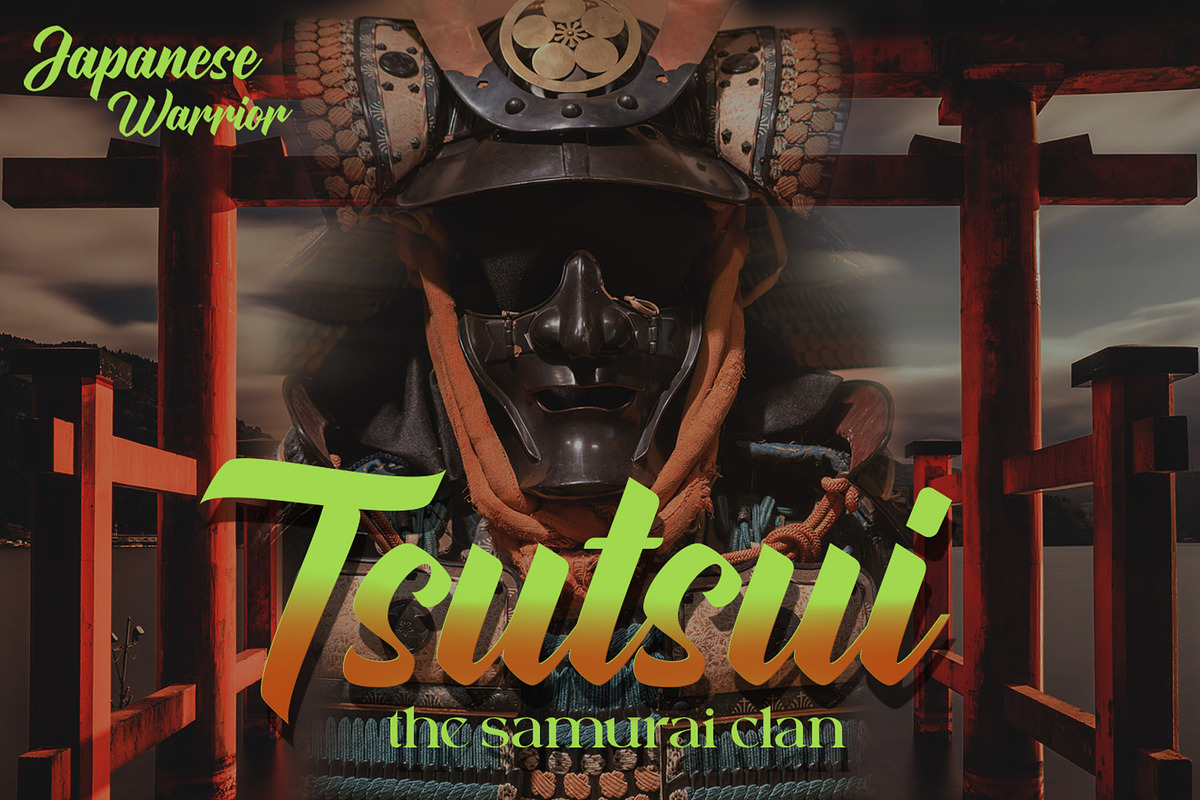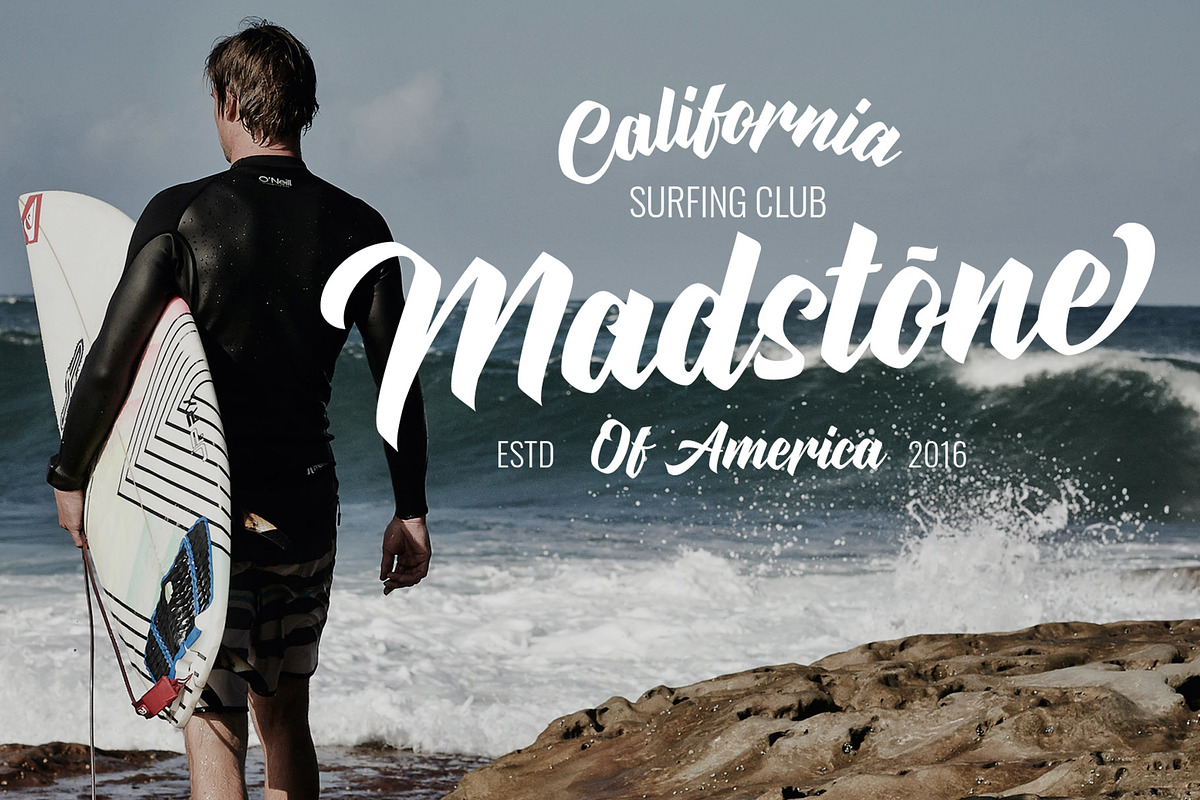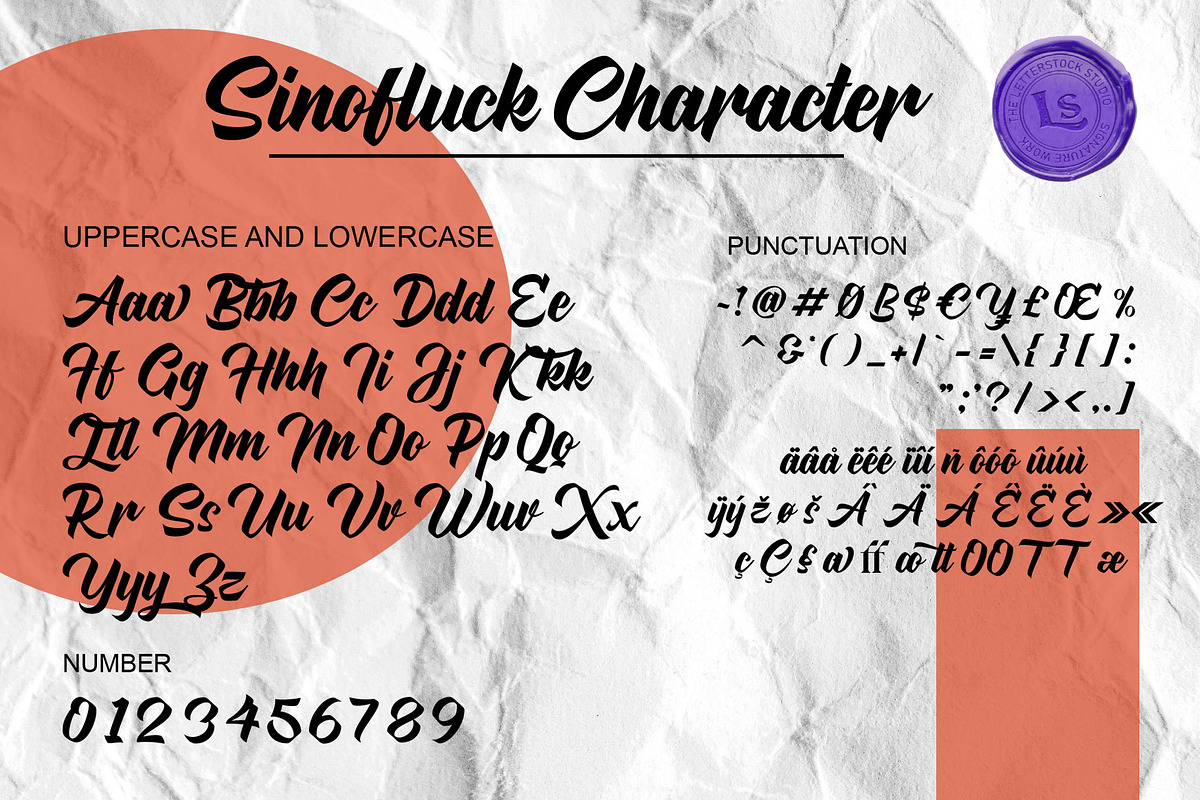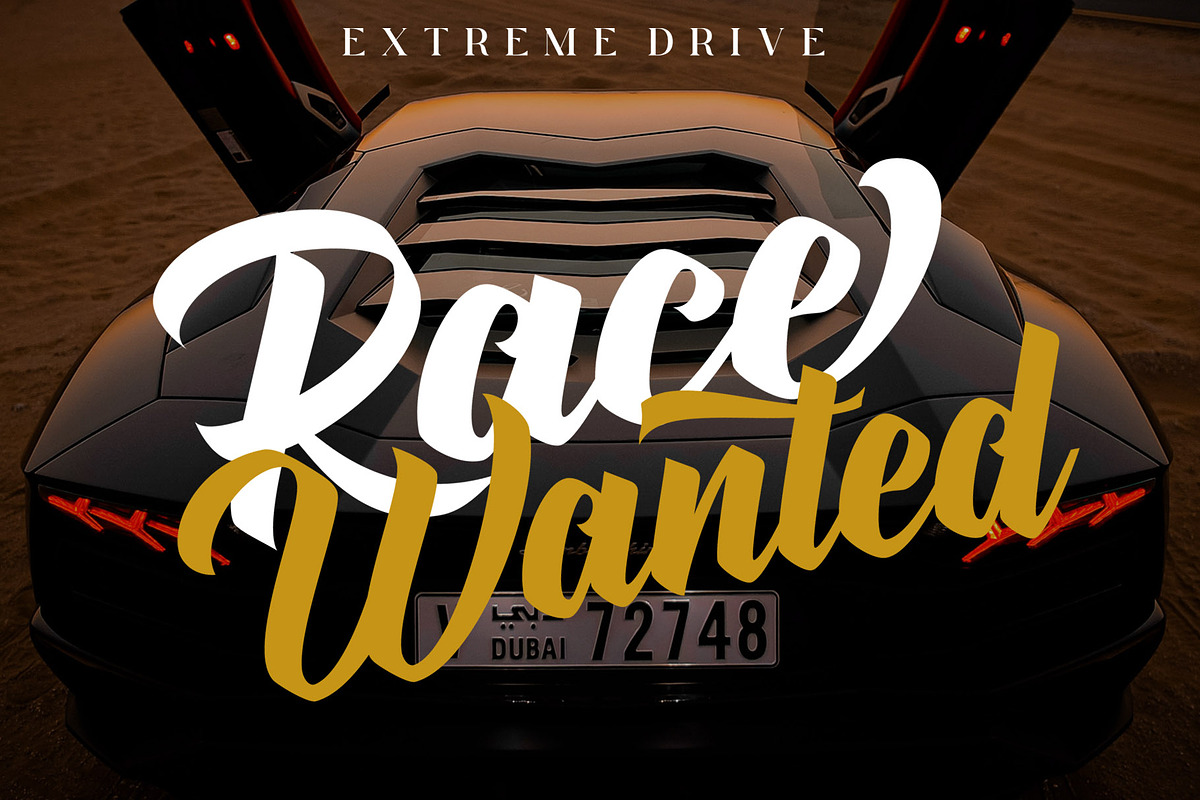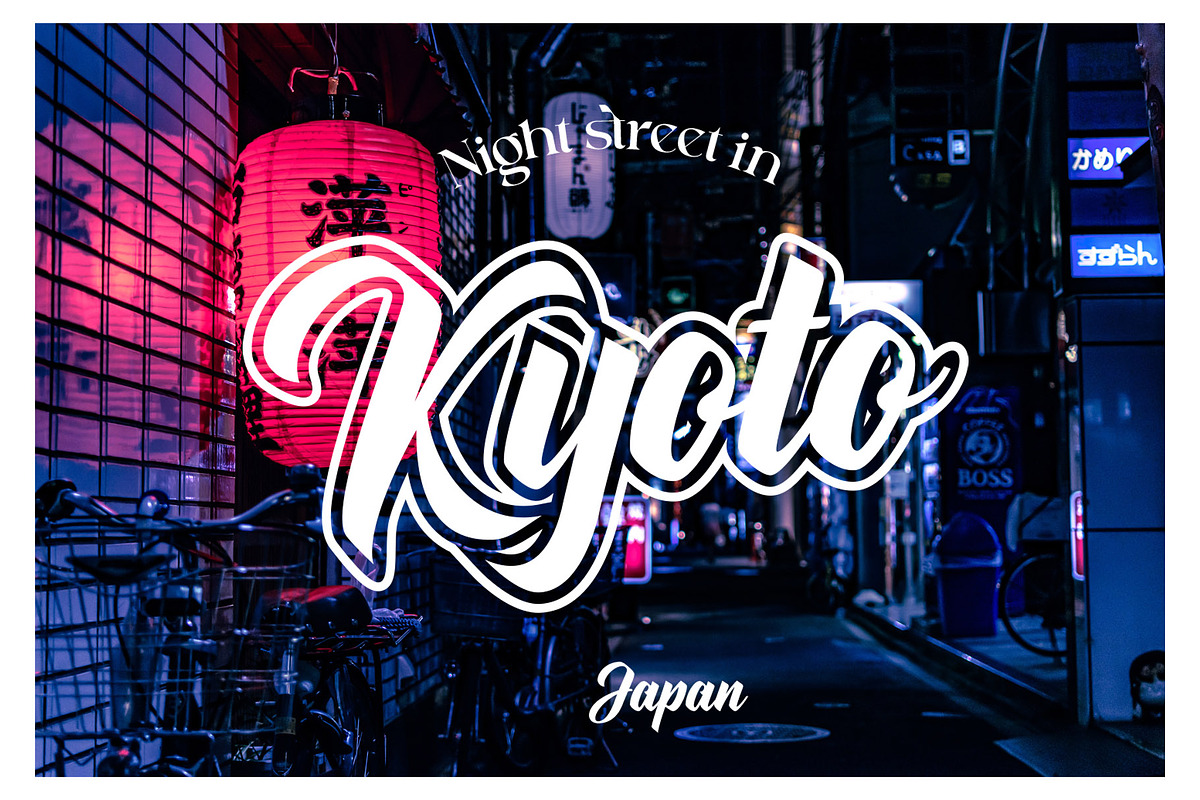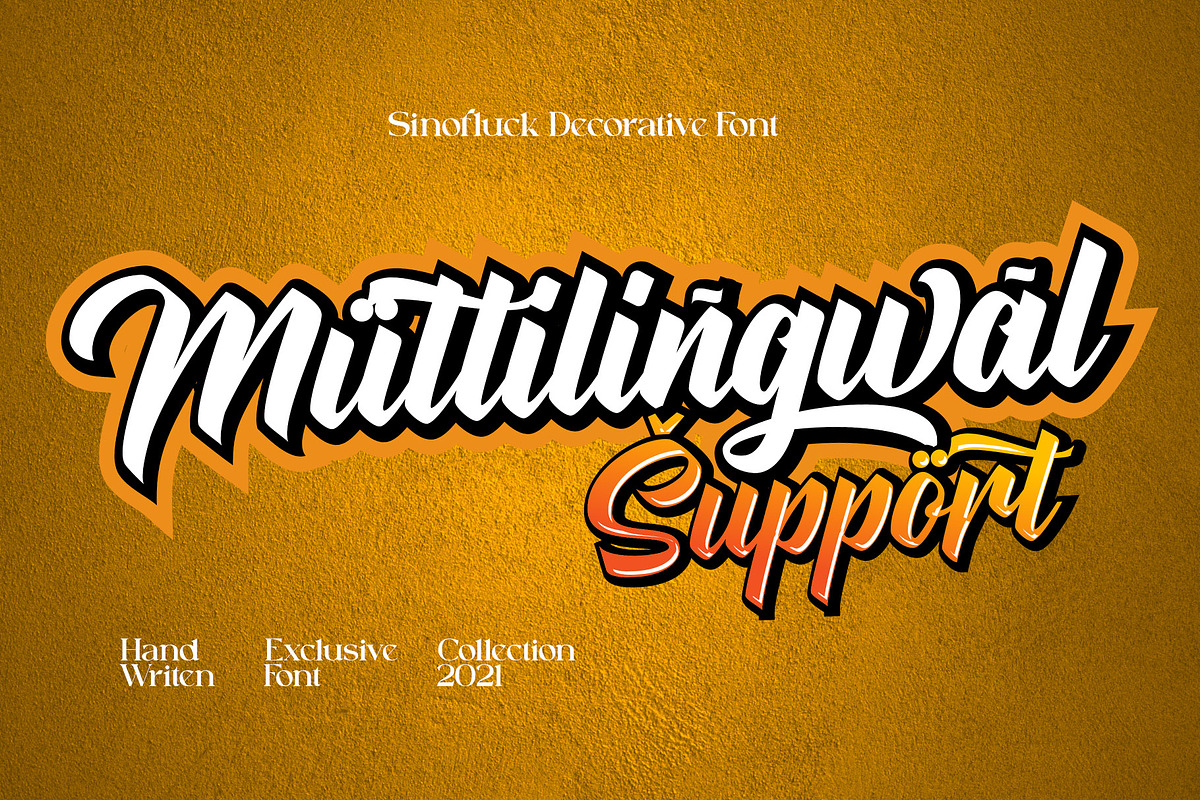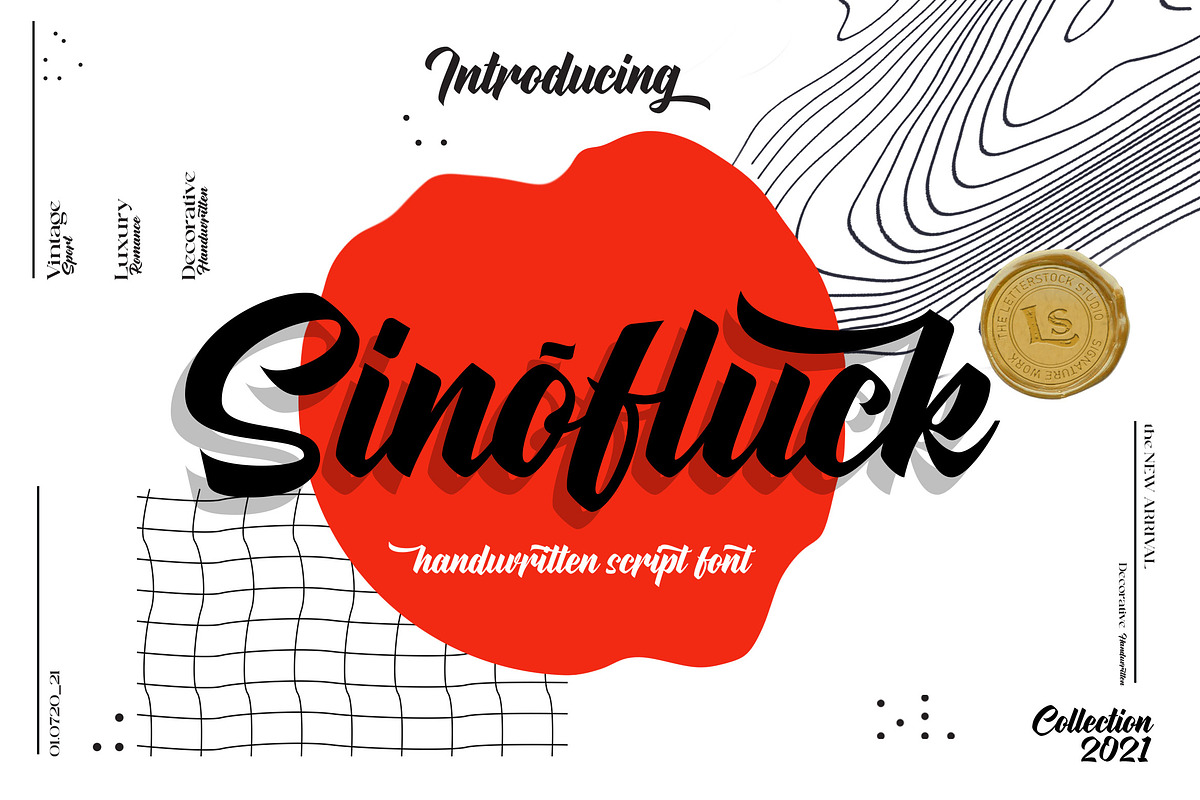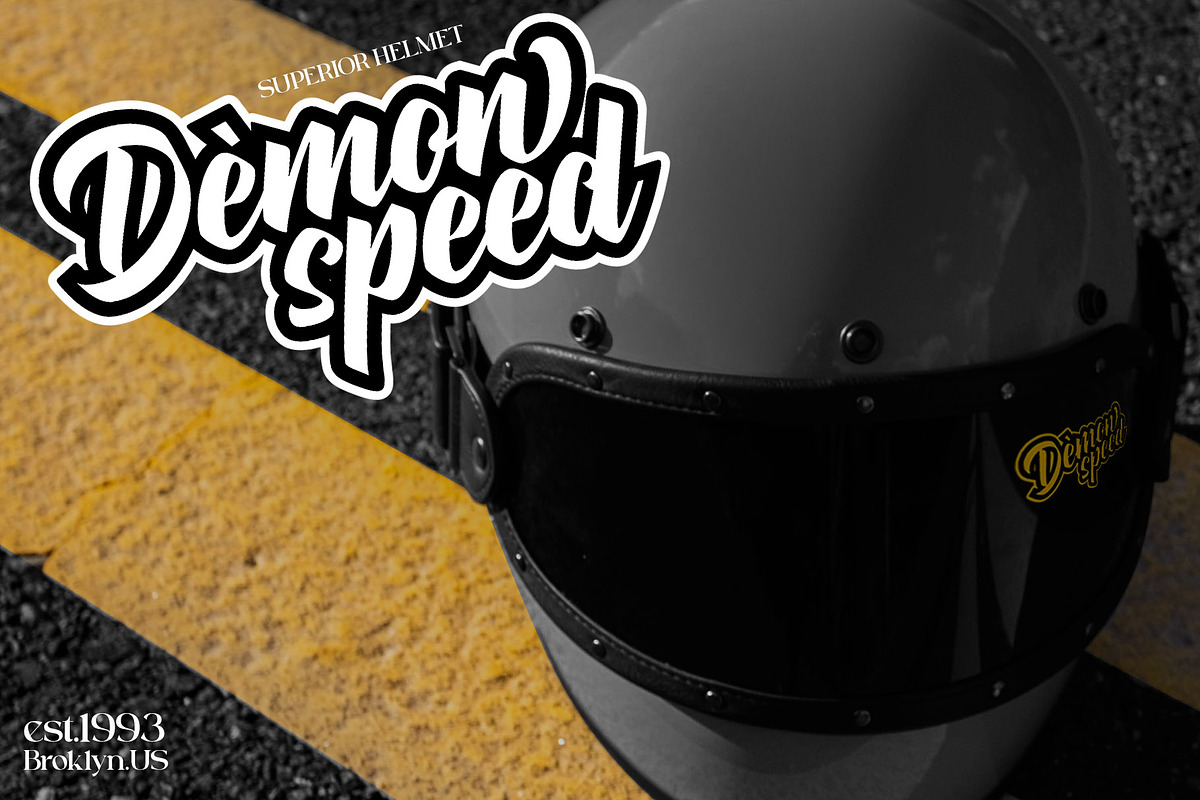
Sinofluck
Sinofluck Font
This pair was inspired by the samurai poster design that i saw on some coffee shop, It was crafted by hand specially to add natural handmade feeling in its brand identity than i make it clean with pentool.
Opentype features Sinofluck font has 207 character set included Sinofluck Font is very good looking in logo, labels, product packaging, invitations, advertising and others.